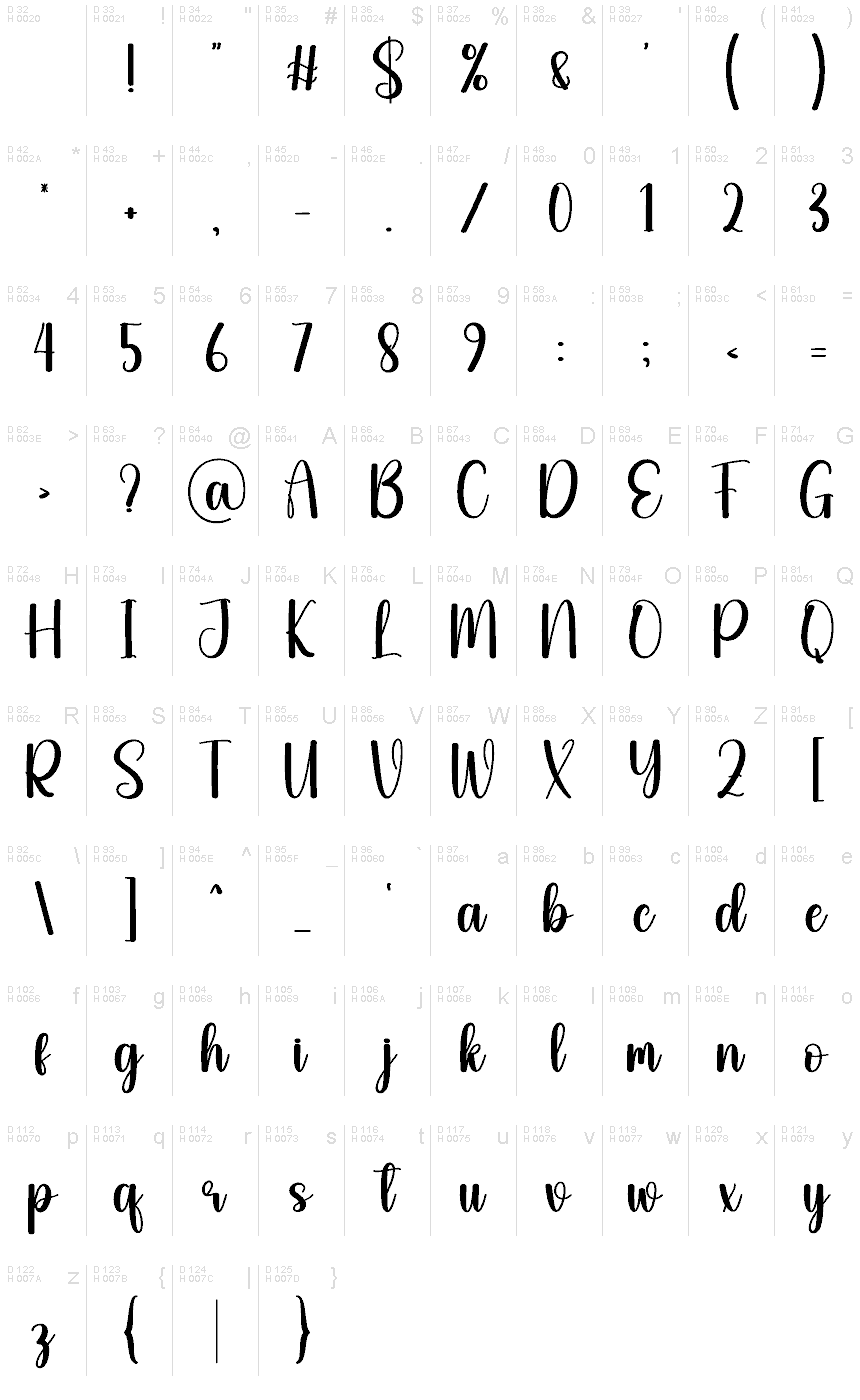
Summer Schedule
Summer Schedule font is a free handwritten font designed by Scratchones. The fluid movement of the letters and expressive contemporary style give it an elegant and romantic feel. Completely cursive with no connected strokes, each character stands in its perfect uniqueness yet beautifully harmonizes with the other characters to form a lovely cohesive whole.